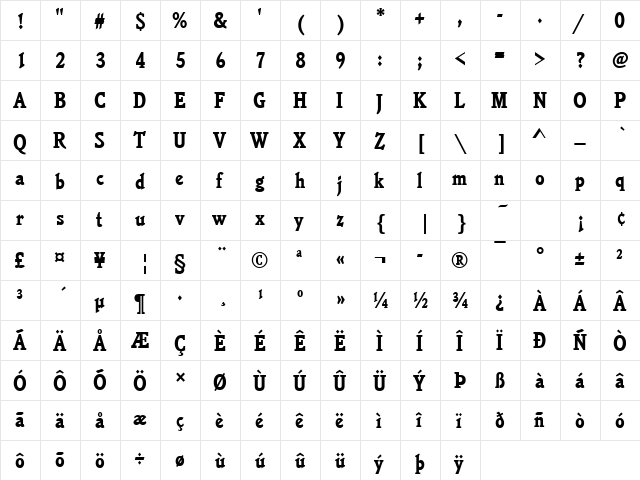
Jenson Old Becker Bold Cond Regular Font Preview
Design Context for Jenson Old Becker Bold Cond Typeface
Jenson Old Becker Bold Cond takes a measured approach to typography — its balanced proportions and neutral character make it a reliable workhorse for both digital and print work. Its bold stroke weight gives it real presence on the page. Its narrow stance lets it pack a punch even in space-constrained designs.